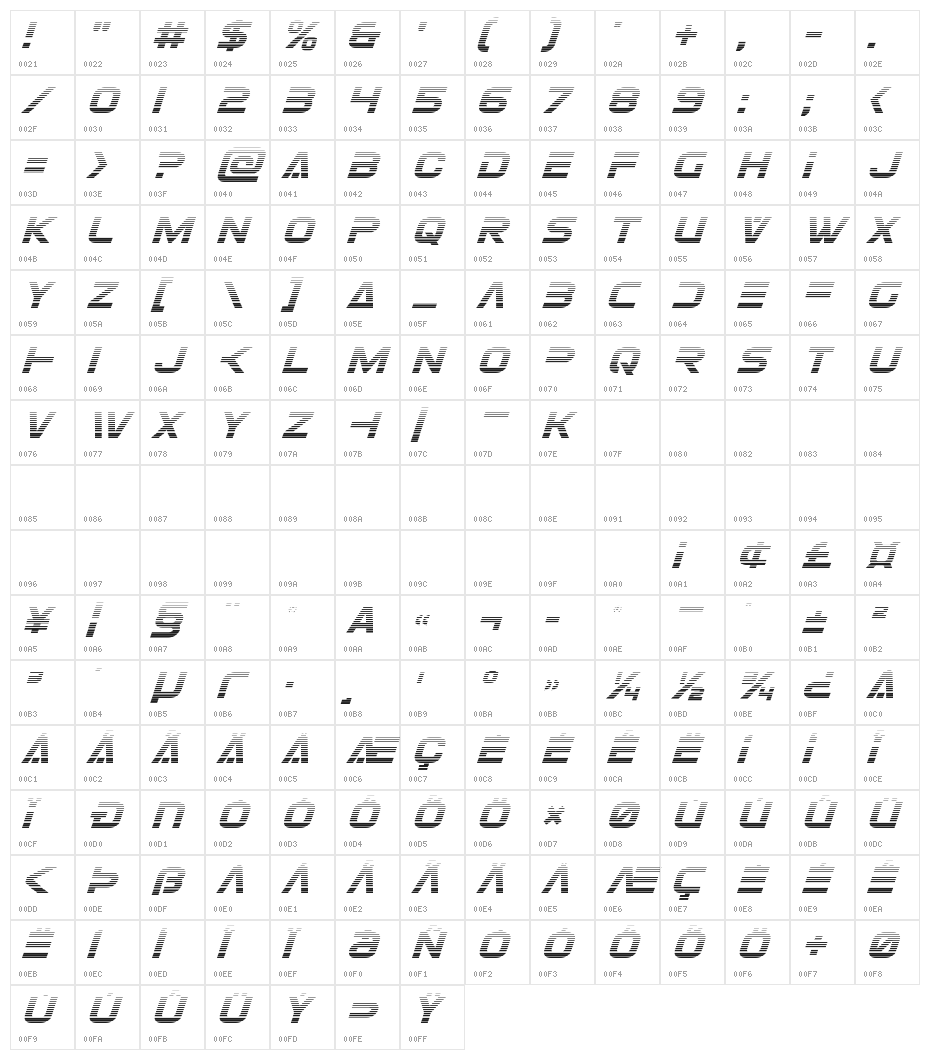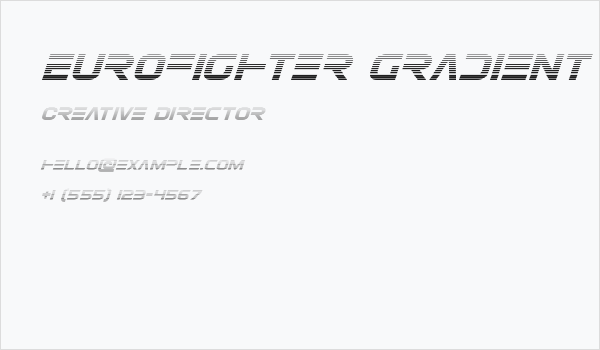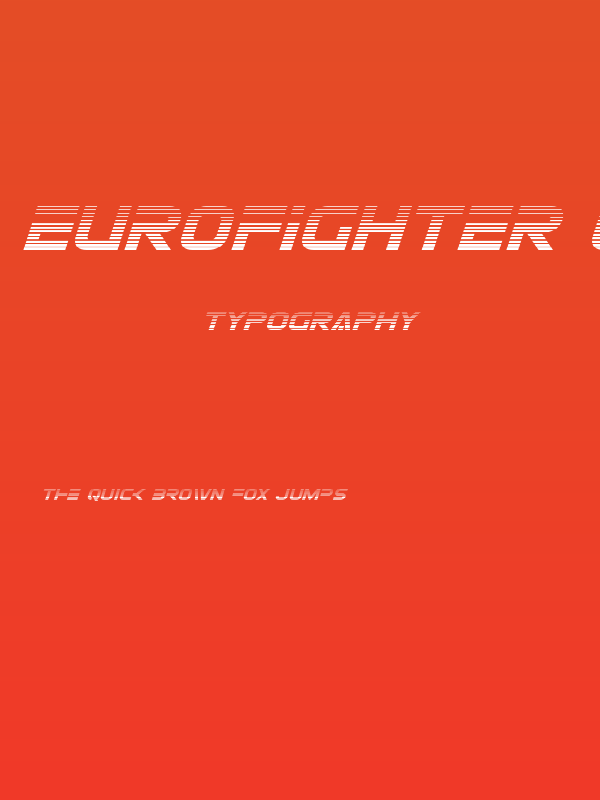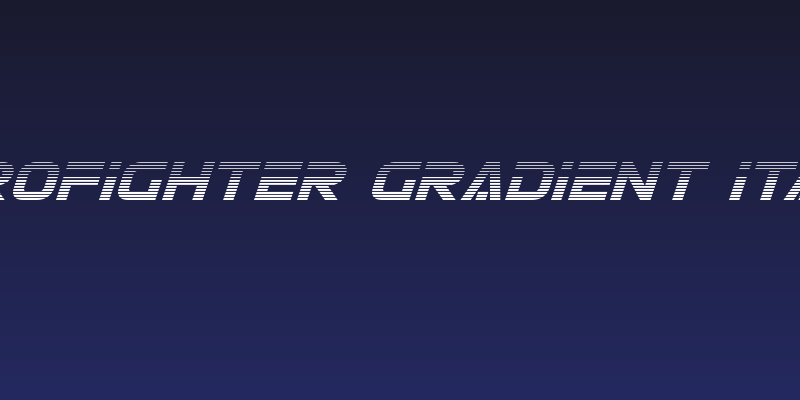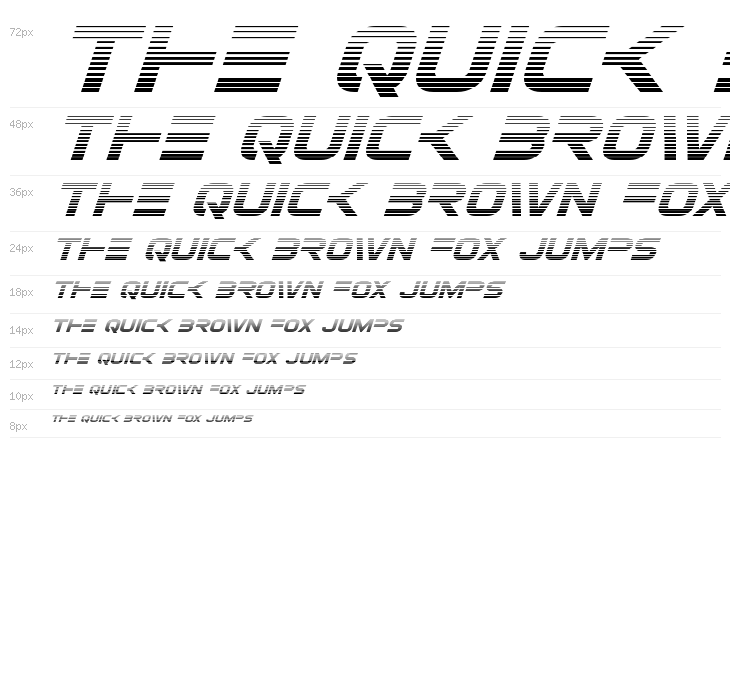
Eurofighter Gradient Italic Font
Eurofighter Gradient Italic Description
This font features a dynamic and futuristic design with a distinct italic slant. The characters are composed of horizontal lines that create a gradient effect, giving a sense of motion and speed. The uppercase and lowercase letters maintain a consistent style, with sharp angles and clean lines. The numerals and special characters follow the same design principles, ensuring uniformity across all glyphs. This font is ideal for projects that require a modern and energetic aesthetic.